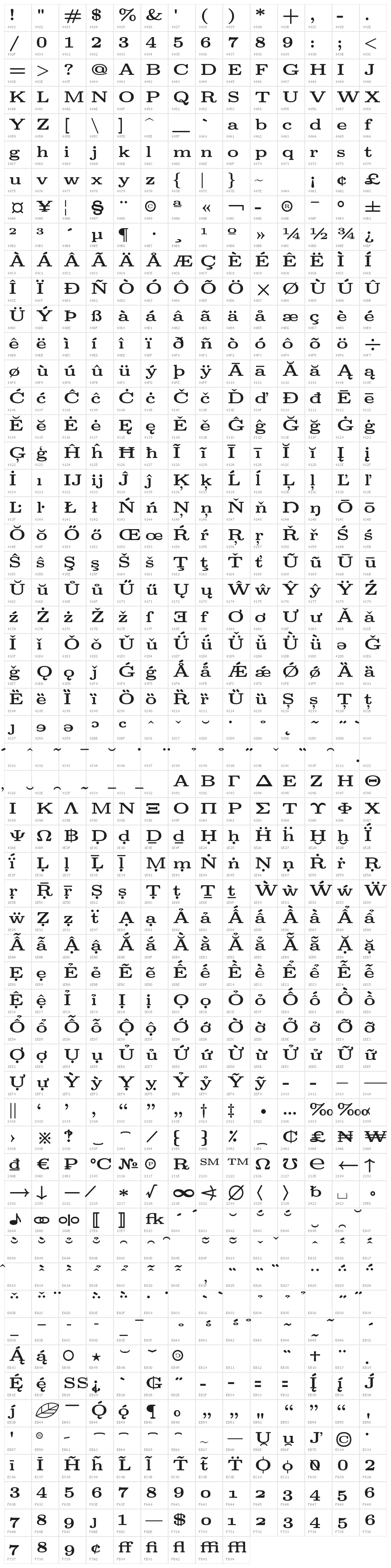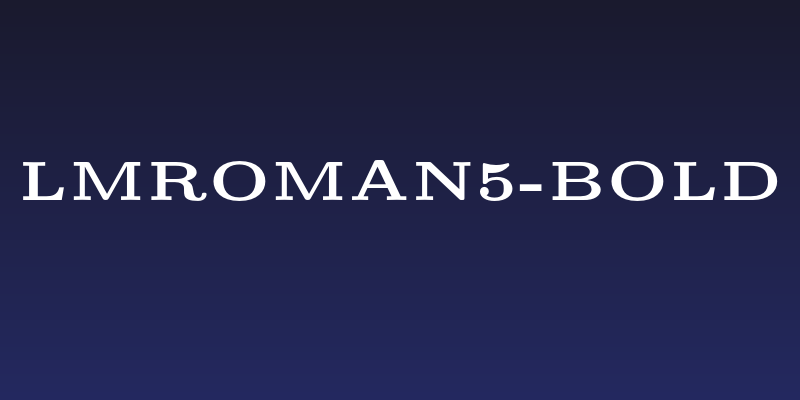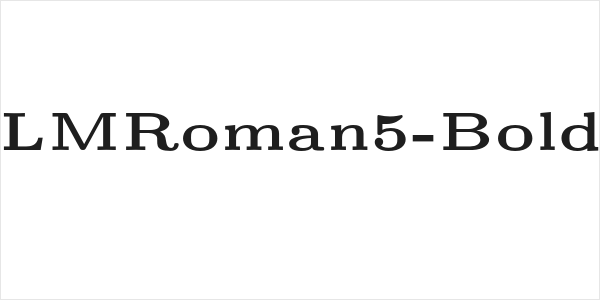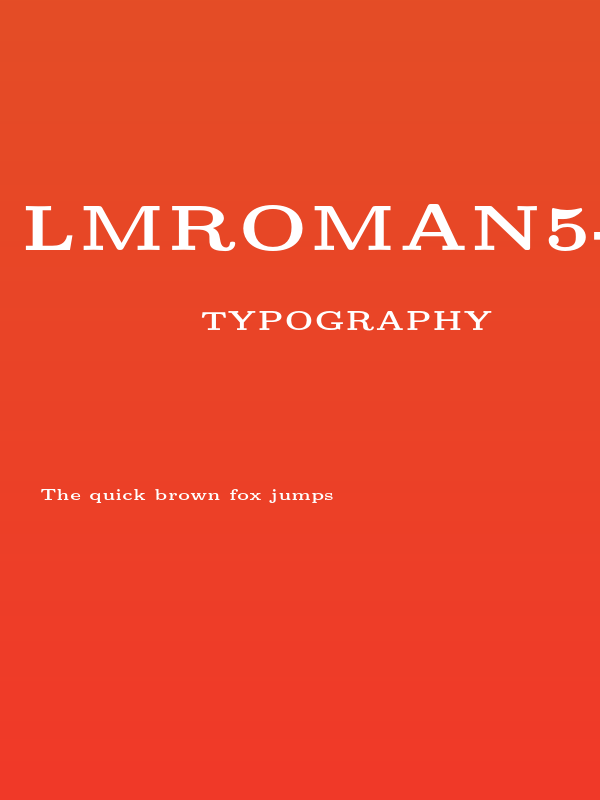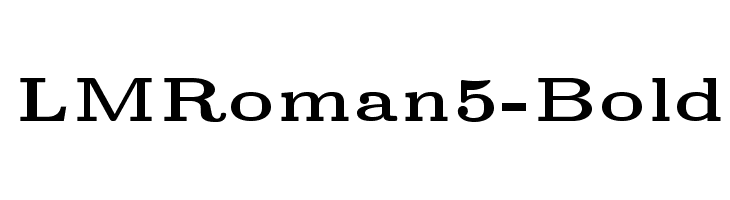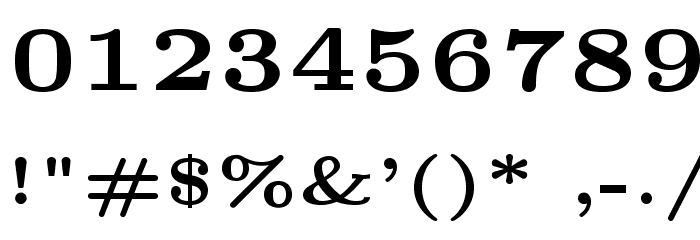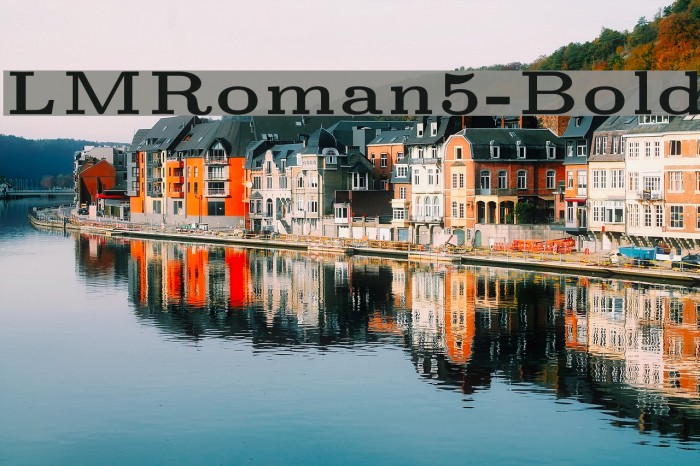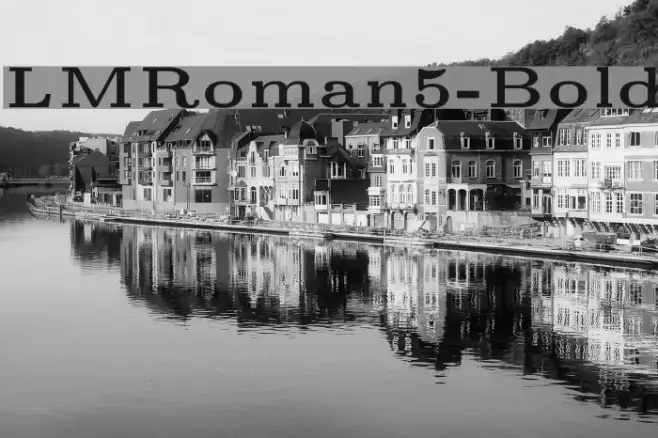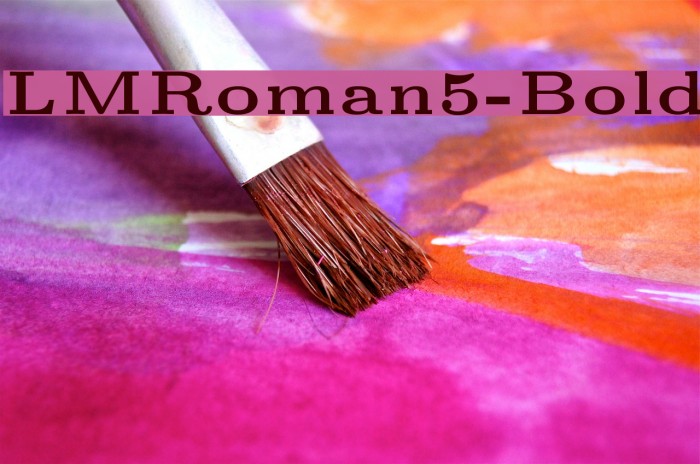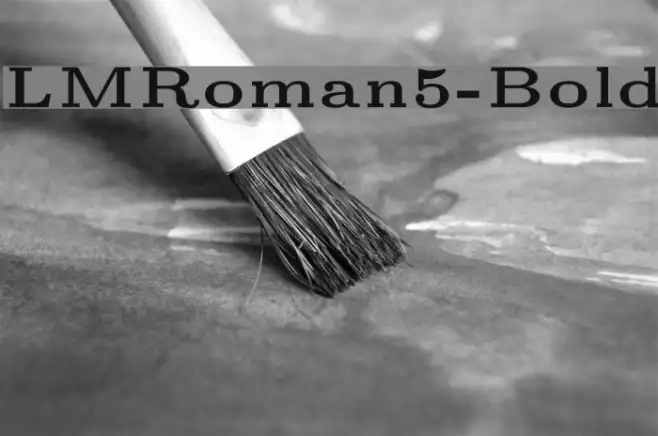
LMRoman5-Bold Font
LMRoman5-Bold Description
This font exhibits a classic serif style with strong, bold strokes that convey a sense of tradition and authority. The serifs are pronounced, adding a touch of elegance and readability, making it suitable for both print and digital media. The uppercase letters are well-proportioned, with a slight contrast in stroke thickness that enhances legibility. The lowercase letters maintain a consistent style, with rounded curves and sharp serifs that provide a harmonious balance. The numerals are clear and distinct, ensuring easy readability. Special characters are designed with the same attention to detail, making this font versatile for various applications.
| Proposed Projects | Ideal for book covers, editorial design, formal invitations, and branding materials. |